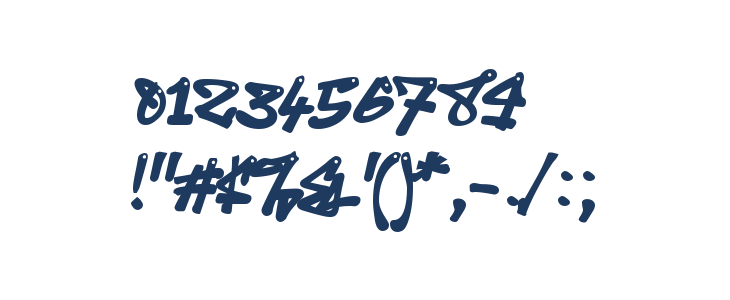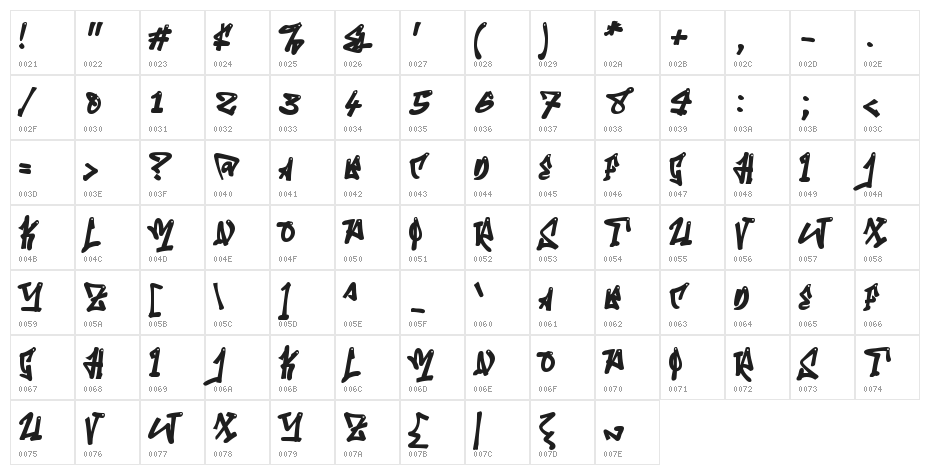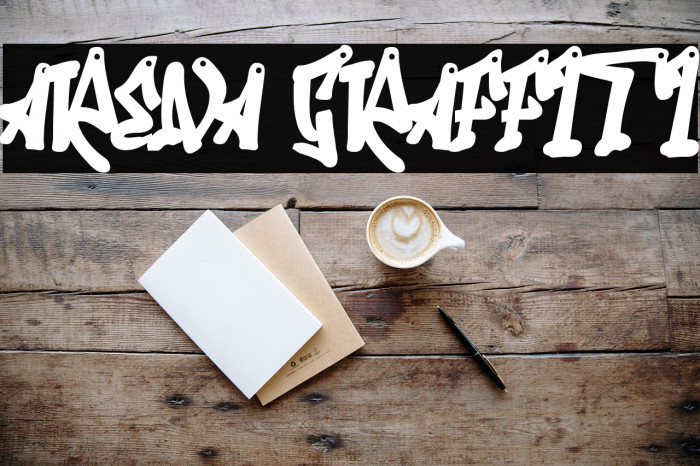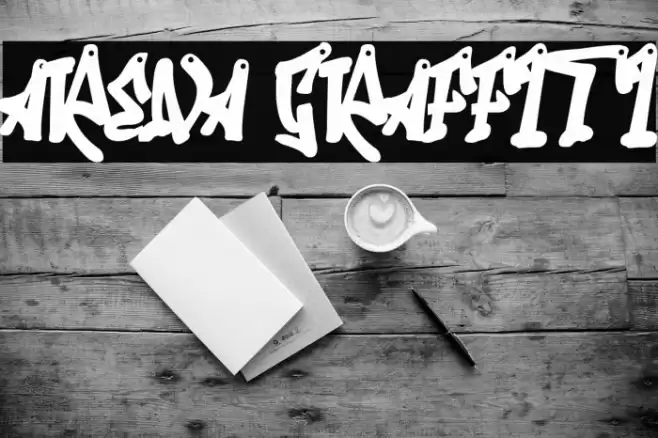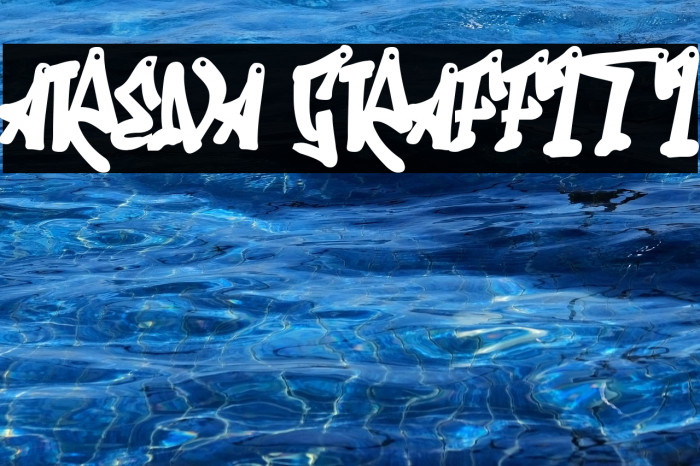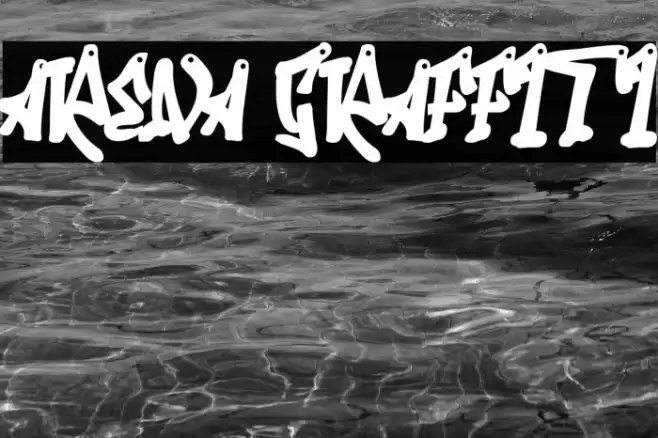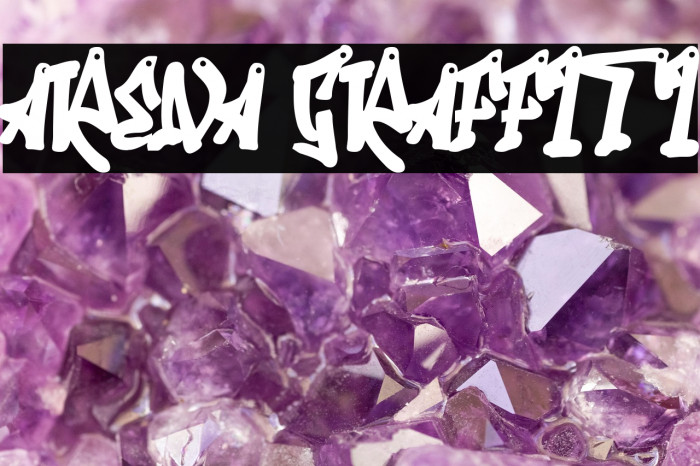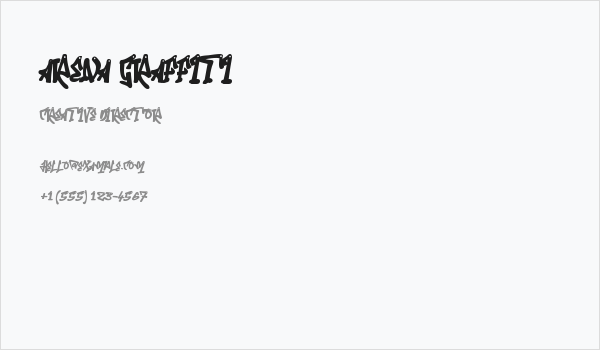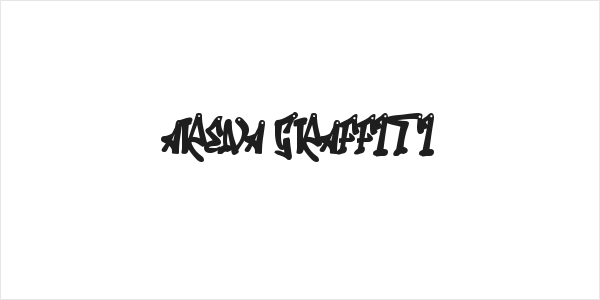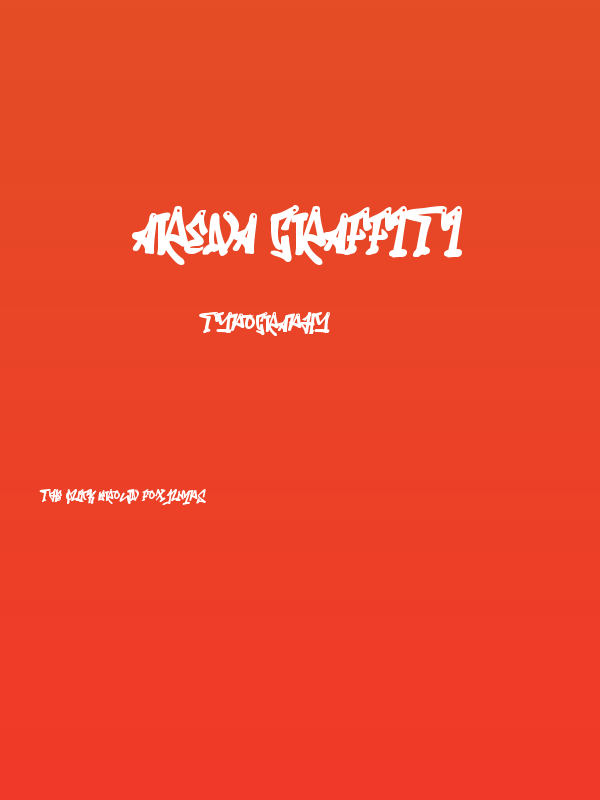
Arena Graffiti Font
Arena Graffiti Description
This graffiti-style font exudes an urban, edgy vibe with its bold, expressive strokes and dynamic forms. The characters are designed with a sense of movement and energy, featuring sharp angles and exaggerated curves that mimic the fluidity of street art. Each letter is unique, yet they all maintain a cohesive style that is both rebellious and artistic. The font includes uppercase and lowercase letters, numbers, and a variety of special characters, all maintaining the same graffiti aesthetic. The boldness of the strokes ensures high visibility, making it ideal for impactful designs.
Overall StyleUrban, Edgy, Artistic
Use CaseLogos, Posters, Headlines
Proposed ProjectsPerfect for street art-inspired designs, urban-themed posters, music album covers, and edgy branding projects.